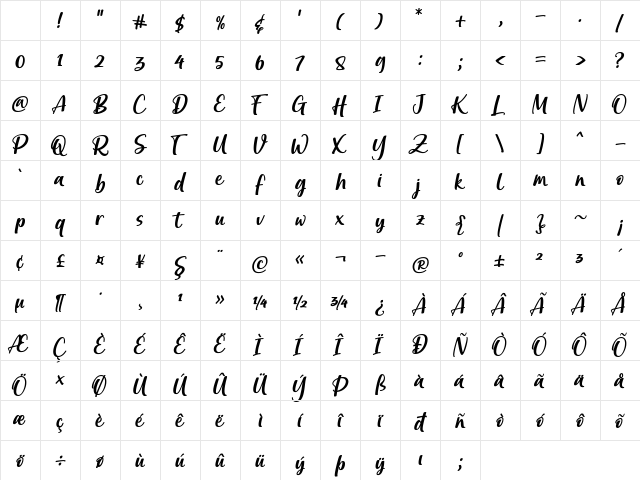
Complete Brastagi Regular glyph index. Displaying only characters natively supported by Brastagi Regular font.
Brastagi is a composed and adaptable typeface that performs quietly and consistently across a wide range of design contexts.